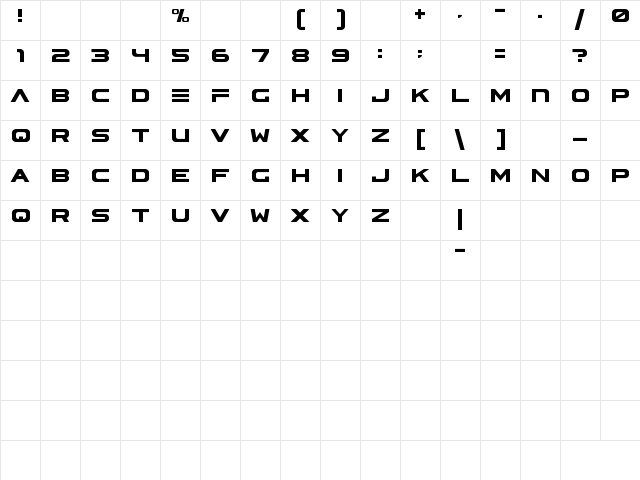
ASTERA Regular
Designer: Nick Polyarush
Design Context for ASTERA
ASTERA is a composed and adaptable typeface that performs quietly and consistently across a wide range of design contexts.